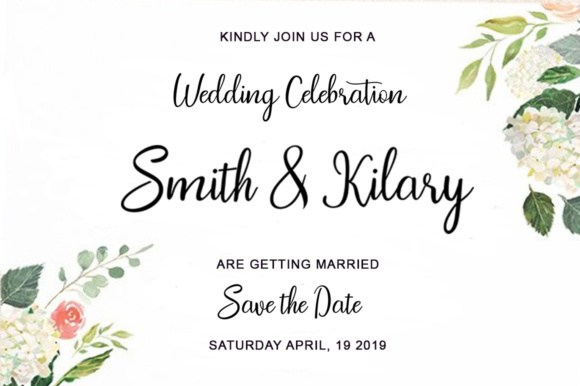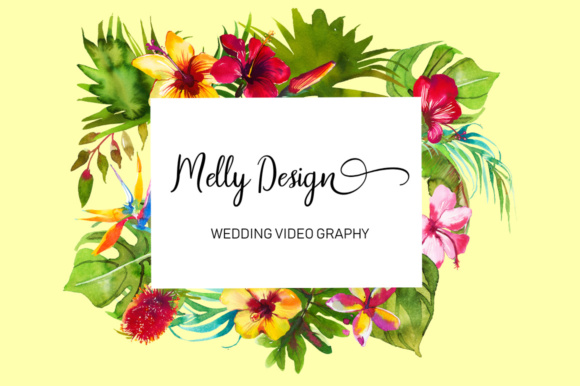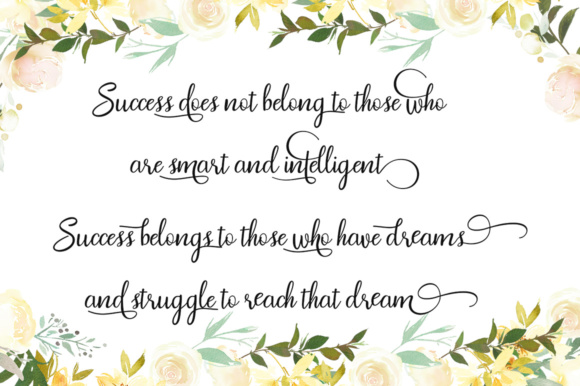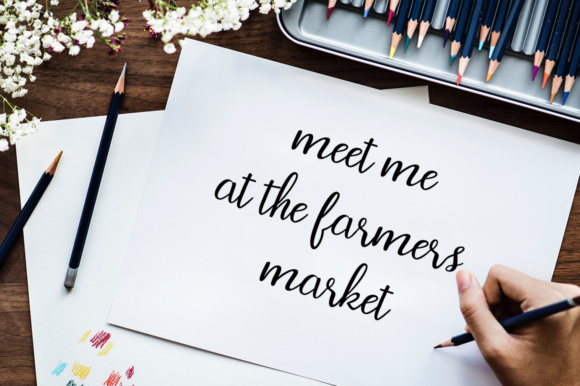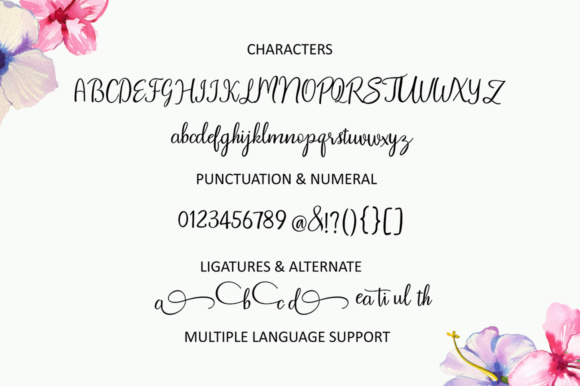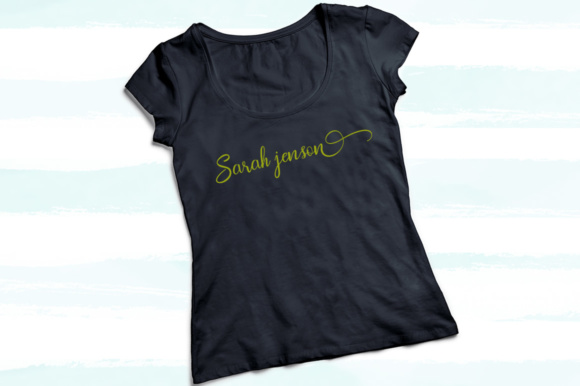
Discover the Elegance of Beautiful Font: A Soft and Feminine Script Font
Are you on the hunt for a font that exudes elegance, sophistication, and a touch of femininity? Look no further than Beautiful Font, a stunning calligraphy font that’s perfect for a wide range of projects. In this article, we’ll dive into the world of Beautiful Font, exploring its features, uses, and benefits for designers and crafters alike.
What is Beautiful Font?
Beautiful Font is a soft and feminine script font that’s designed to add a touch of elegance to any project. Its flowing lines, delicate curves, and whimsical flourishes make it a standout in the world of typography. This calligraphy font is perfect for designers and crafters who want to add a personal touch to their work, whether it’s a branding project, a wedding invitation, or a DIY craft.
Features of Beautiful Font
So, what makes Beautiful Font so special? Here are just a few of its key features:
- Soft and feminine: Beautiful Font is designed to be delicate and elegant, making it perfect for projects that require a touch of sophistication.
- Script font: This font features flowing lines and connected letters, giving it a beautiful, handwritten feel.
- Versatile: Beautiful Font works well in a wide range of projects, from branding and advertising to wedding invitations and DIY crafts.
- Easy to read: Despite its delicate nature, Beautiful Font is surprisingly easy to read, making it perfect for body text and headlines.
Uses for Beautiful Font
So, what can you use Beautiful Font for? The possibilities are endless! Here are just a few ideas to get you started:
- Branding and advertising: Use Beautiful Font to add a touch of elegance to your brand’s logo, marketing materials, and website.
- Wedding invitations: This font is perfect for wedding invitations, save-the-dates, and other wedding stationery.
- DIY crafts: Beautiful Font is great for DIY crafts, such as handmade cards, gift tags, and scrapbooking.
- Signage: Use this font to create beautiful signs for your business, event, or home.
Benefits of Using Beautiful Font
So, why should you choose Beautiful Font for your next project? Here are just a few benefits:
- Adds elegance: Beautiful Font adds a touch of sophistication and elegance to any project.
- Standout text: This font is sure to make your text stand out, whether it’s on a website, in a brochure, or on a sign.
- Easy to use: Beautiful Font is surprisingly easy to use, even for those who are new to calligraphy fonts.
- Versatile: This font works well in a wide range of projects, making it a great addition to any designer’s toolkit.
Tips for Using Beautiful Font
Here are a few tips for getting the most out of Beautiful Font:
- Use it sparingly: While Beautiful Font is stunning, it can be overwhelming if used too much. Use it sparingly to add emphasis to your text.
- Pair it with a sans-serif font: Pair Beautiful Font with a sans-serif font, such as Arial or Helvetica, to create a beautiful contrast.
- Experiment with colors: Beautiful Font looks great in a range of colors, from soft pastels to rich jewel tones. Experiment with different colors to find the perfect look for your project.
| Font Name | Beautiful Font |
| Author | Stellar Studio |
In conclusion, Beautiful Font is a stunning calligraphy font that’s perfect for designers and crafters who want to add a touch of elegance to their projects. With its soft and feminine design, versatile uses, and easy-to-read text, Beautiful Font is a great addition to any designer’s toolkit. Whether you’re working on a branding project, a wedding invitation, or a DIY craft, Beautiful Font is sure to make your text stand out.